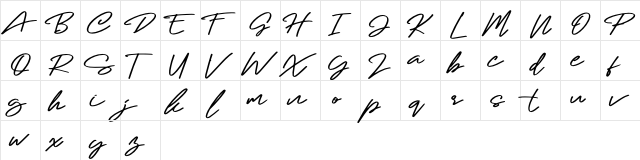
Calling Loves Font Duo Regular
Design Context for Calling Loves Font Duo Typeface
Calling Loves Font Duo is a composed and adaptable typeface that performs quietly and consistently across a wide range of design contexts.
Pro Tip: Use Calling Loves Font Duo in both headline and body roles to test its range before committing to a single application.